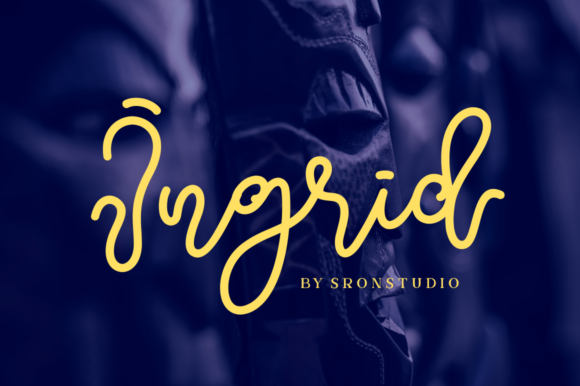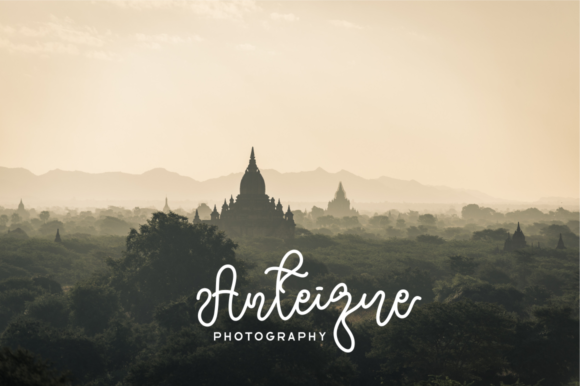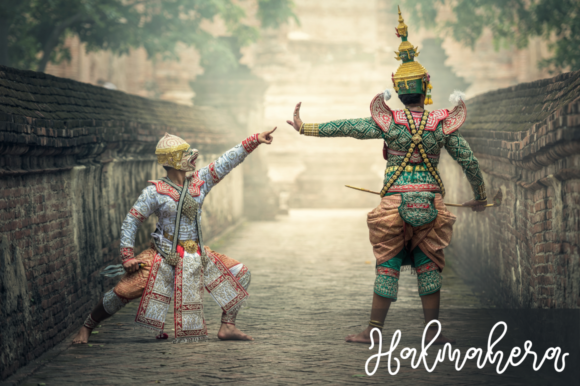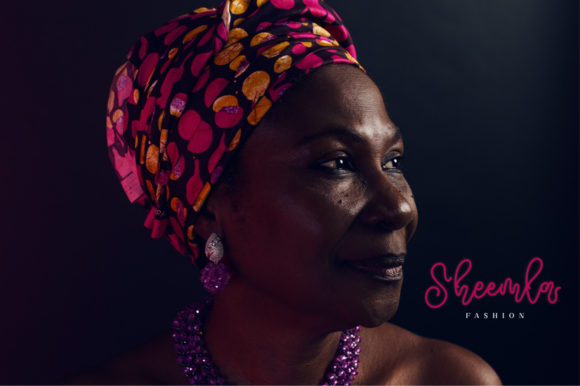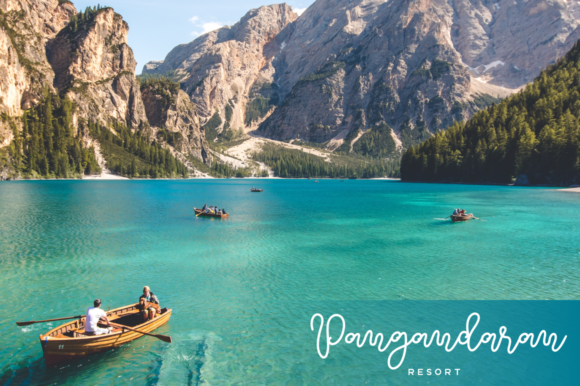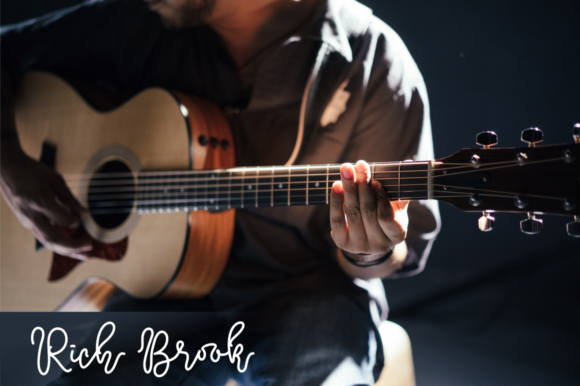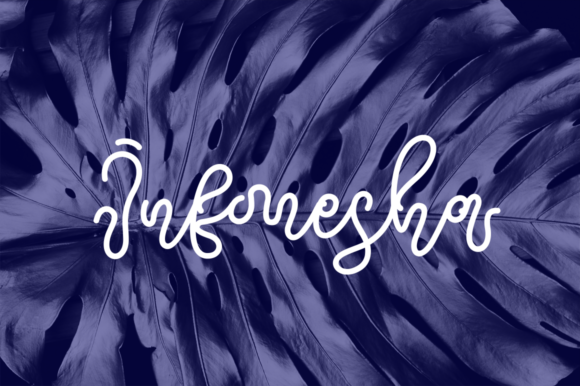
Ingrid Script Font
About Ingrid Script Font
The Ingrid is an unique script font. It comes with lowercase ending alternates that will give you the opportunity to create unique designs, every time you use it.